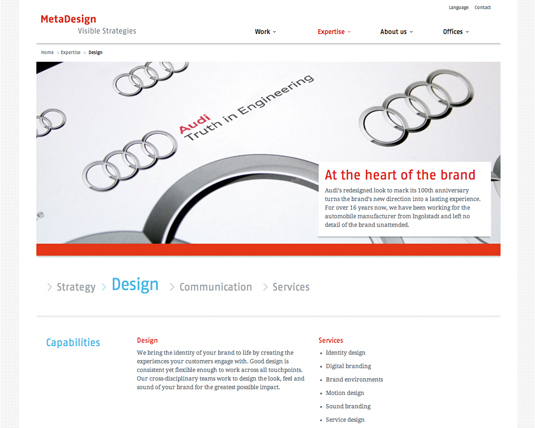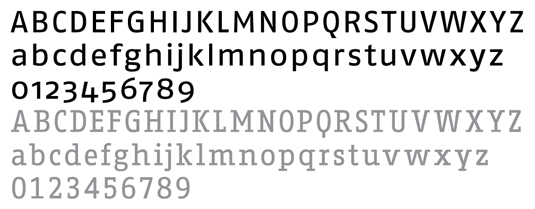
Greatest fonts countdown: 75 - FF Fago
75. FF Fago
- Ole Schächer, 2000
FF Fago is a corporate typeface for businesses. Whereas a book, magazine or website might use two, three or four fonts together, each complementing the others and doing specific jobs, a corporate font will have many roles.
With Ole Schäfer’s experience working on corporate type projects, gained while working on corporate image projects at MetaDesign, this large family of fonts addresses the range of typographical challenges that are likely to be encountered in its use throughout a company. It offers three widths, each in five weights, and includes italics and small capitals. A monospaced correspondence font completes the typeface.